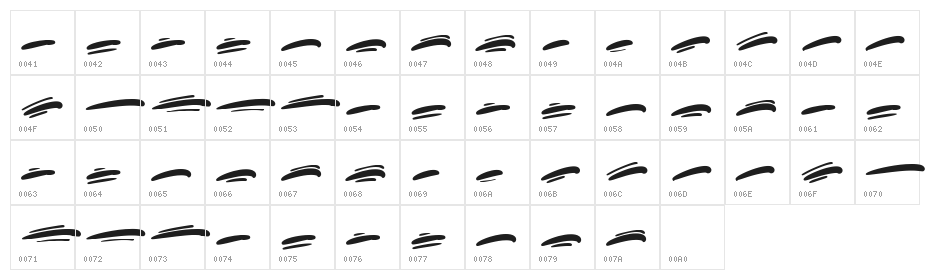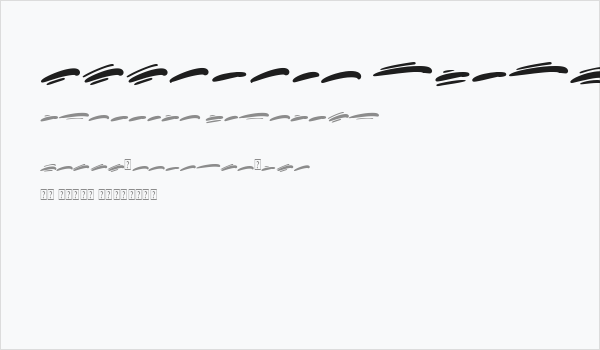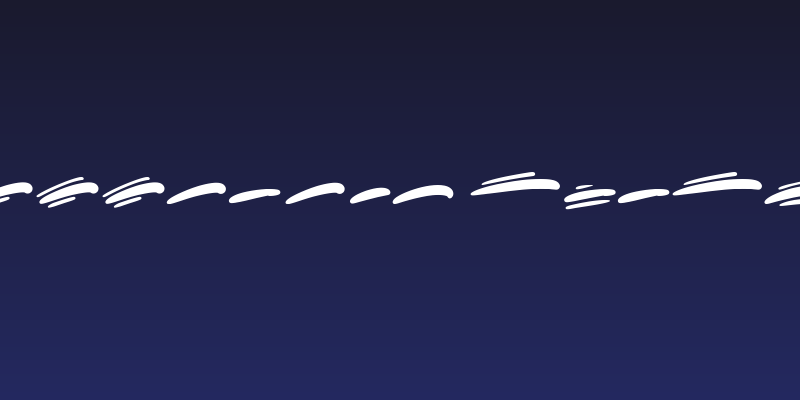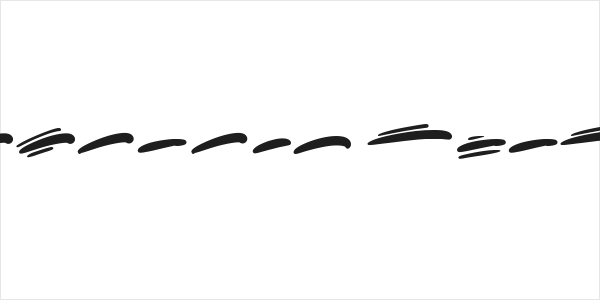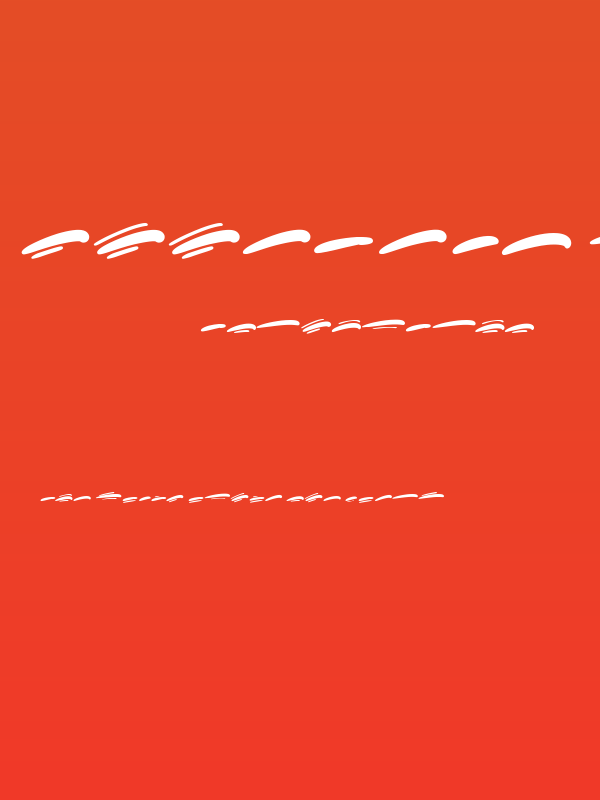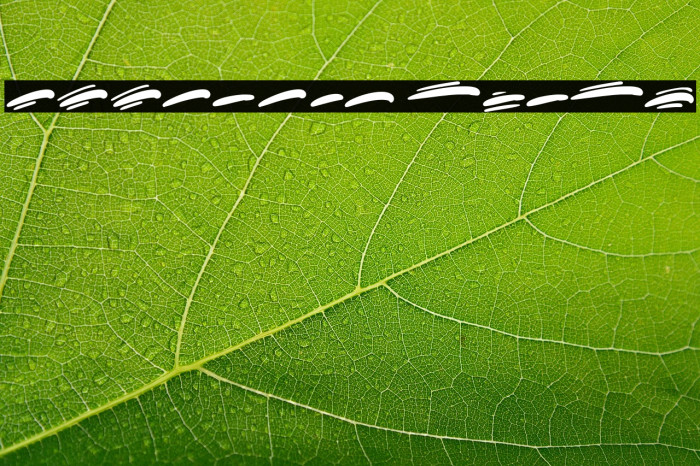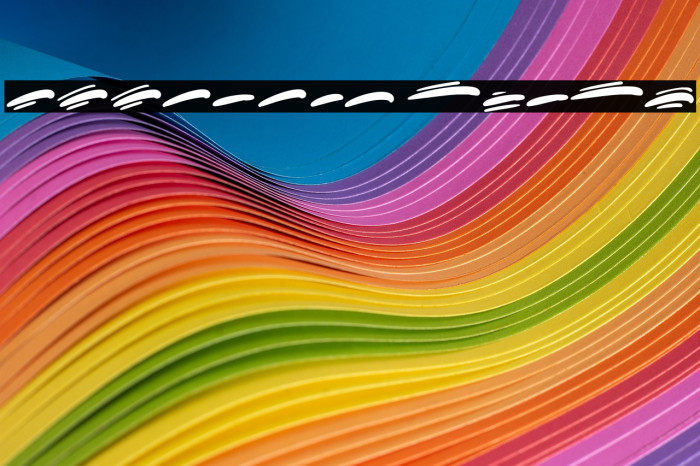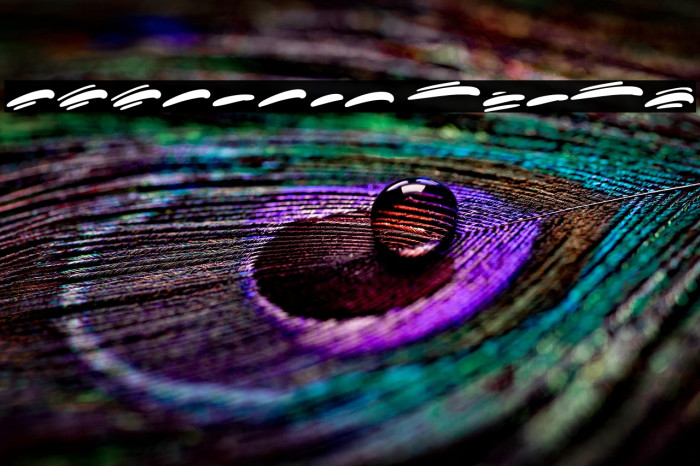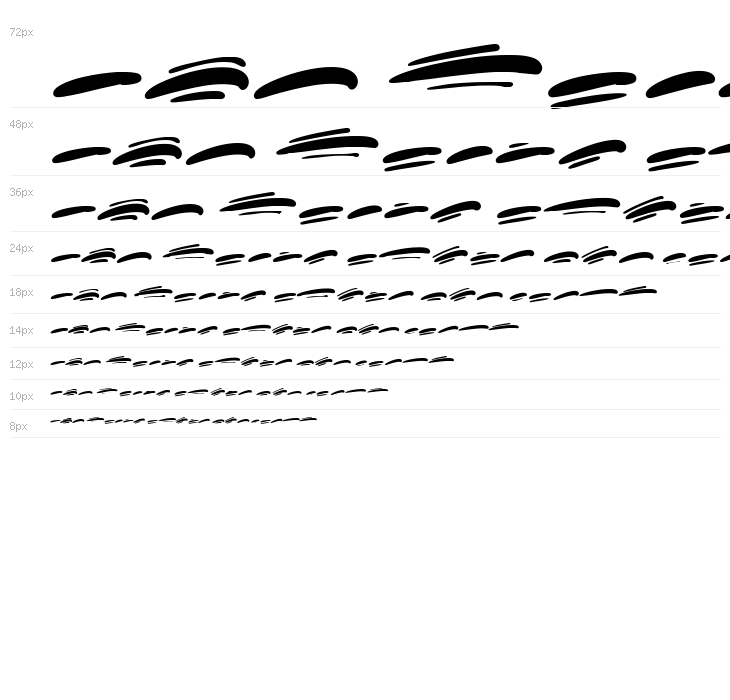
Koonamie Swash Font
Koonamie Swash Description
This font features a unique and artistic design, characterized by its bold, sweeping strokes that mimic the fluidity of a brush or pen. Each character is crafted with a sense of motion, giving the impression of dynamic movement across the page. The strokes vary in thickness, creating a lively and expressive appearance. This font is ideal for projects that require a touch of creativity and flair, as it stands out with its distinctive style. The overall look is both modern and artistic, making it suitable for a variety of creative applications.
| Overall Style | Artistic, Modern |
| Use Case | Headlines, Logos, Artistic designs |
| Proposed Projects | Ideal for creative projects such as posters, invitations, branding, and artistic designs. |